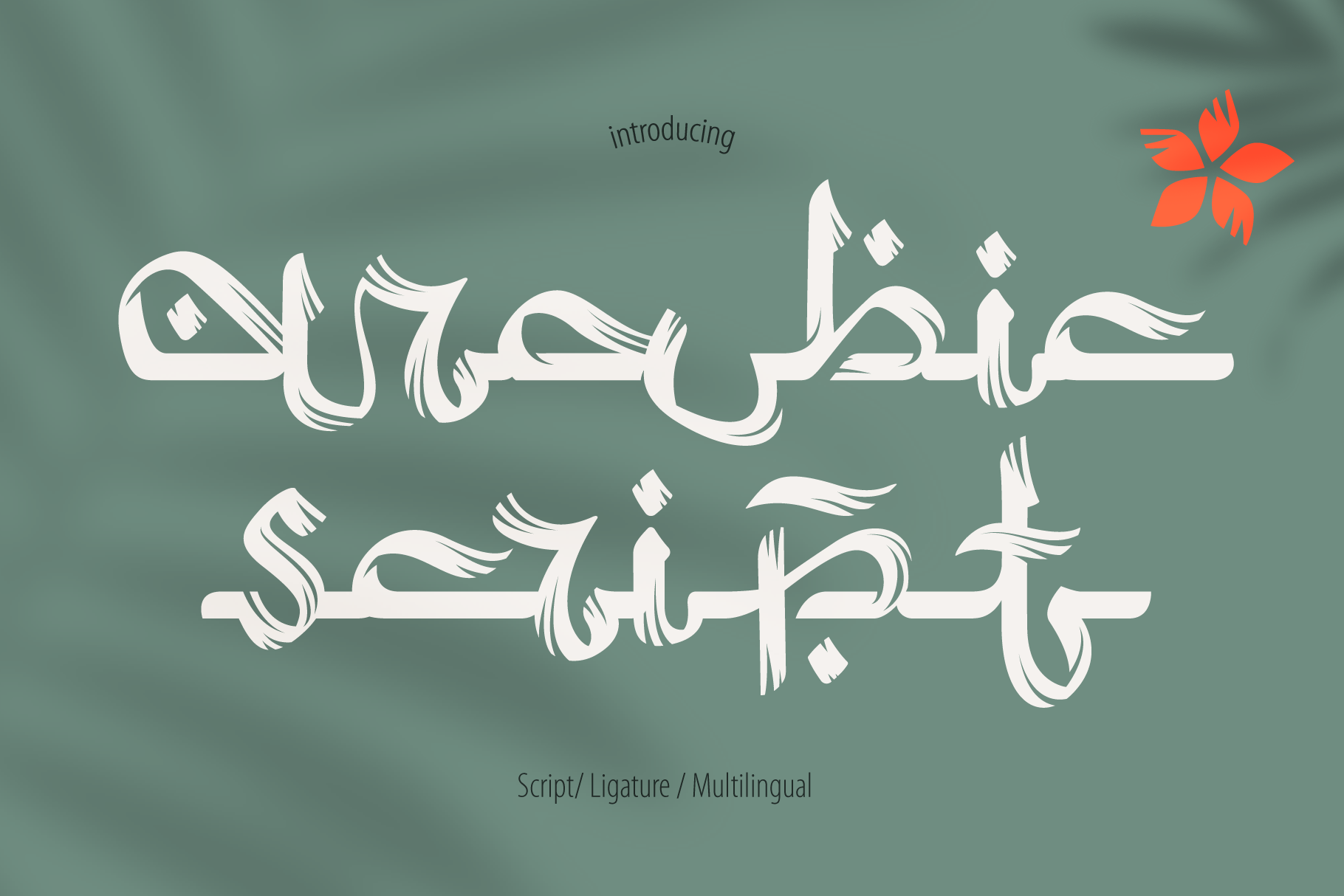
Arabic script Font
Hello! I'm happy to present you my new ethnic font family. I tried to create Latin letters font in Arabic style. Right now, you can type your text with Latin characters, and it can be read internationally. So, can you read this script?
This font family consists of two font styles (regular and rough). Both of them will make an Arabic feel to every text you type using this font. I paid a lot of time for ligatures to provide flowing effect to every lettering.
You can easily design Ramadan advertising, Islamic quotes posters, Arabic style greeting cards, Eastern brand logos, and others.
- Mültîlíñgúãl Sùppört
- Special Alternates and ligatures